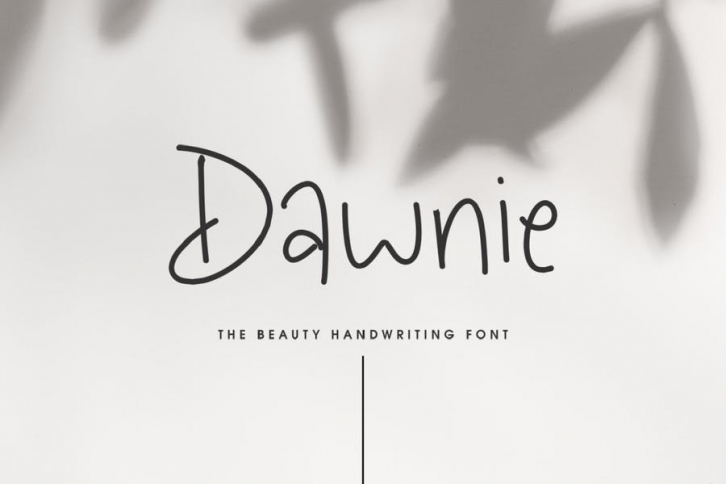
Dawnie - The Beauty Handwriting Font
Dawnie - The Beauty Handwriting Font, it’s perfect for logos, name card, magazine layouts, invitations, headers, or even large-scale artwork.